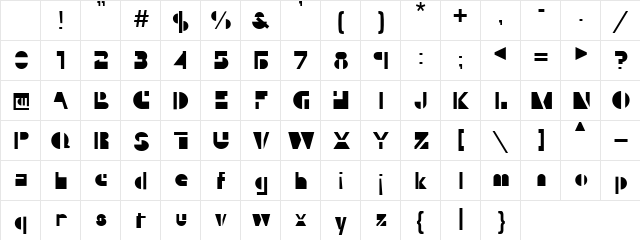
Complete Yubi Yubi glyph index. Displaying only characters natively supported by Yubi Yubi font.
Yubi is a composed and adaptable typeface that performs quietly and consistently across a wide range of design contexts.